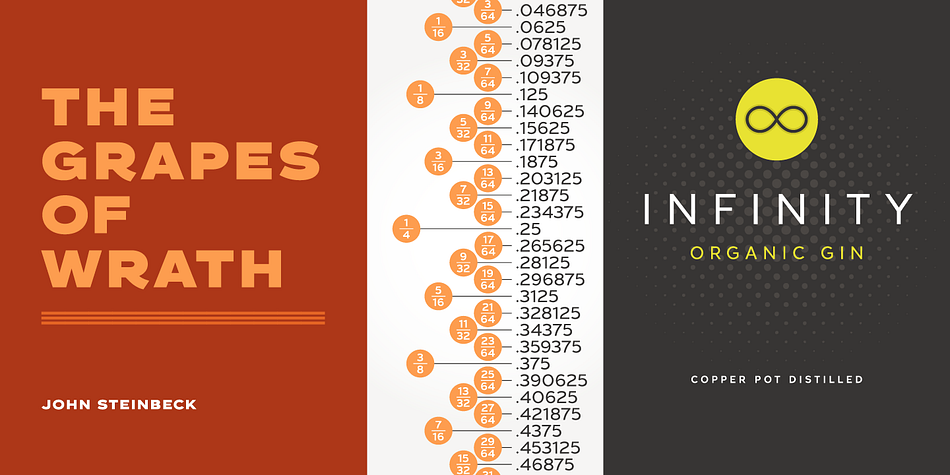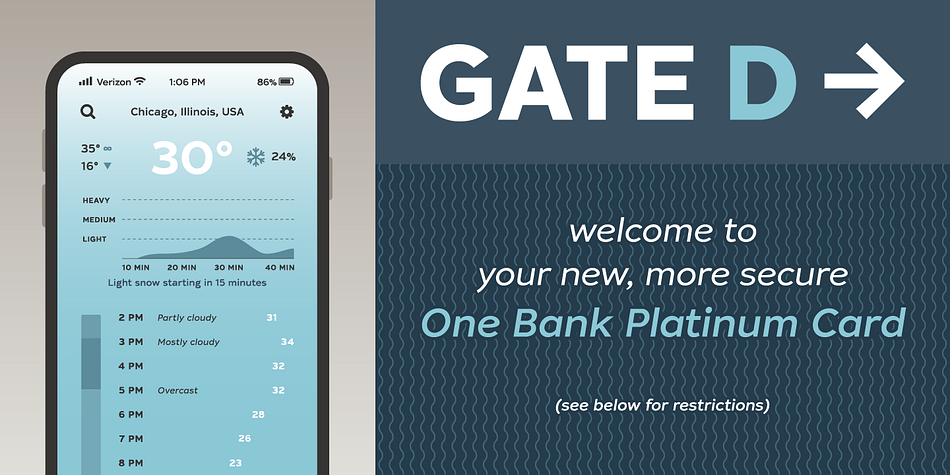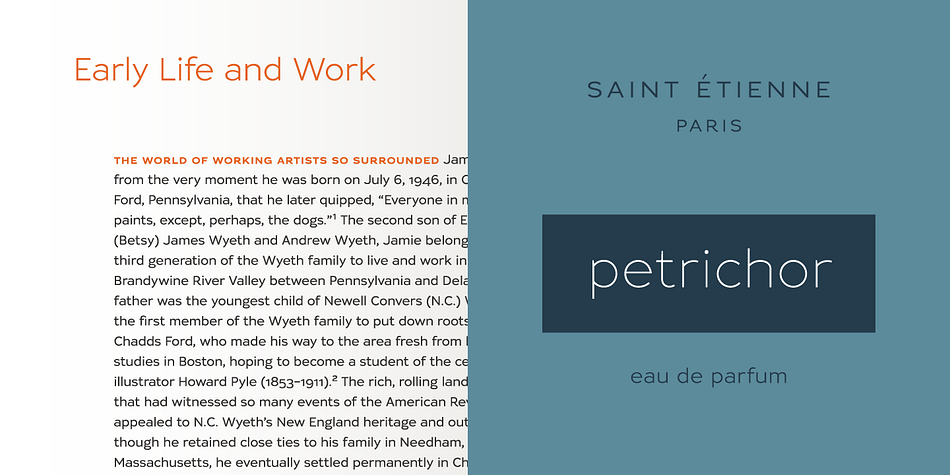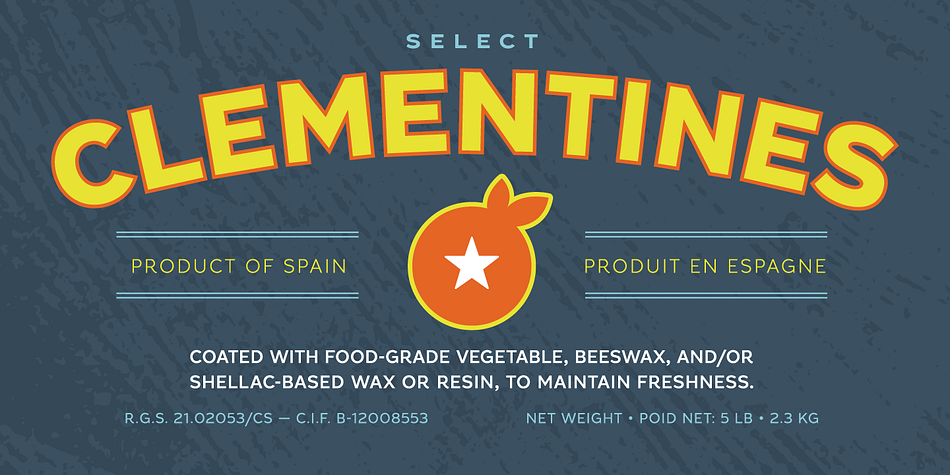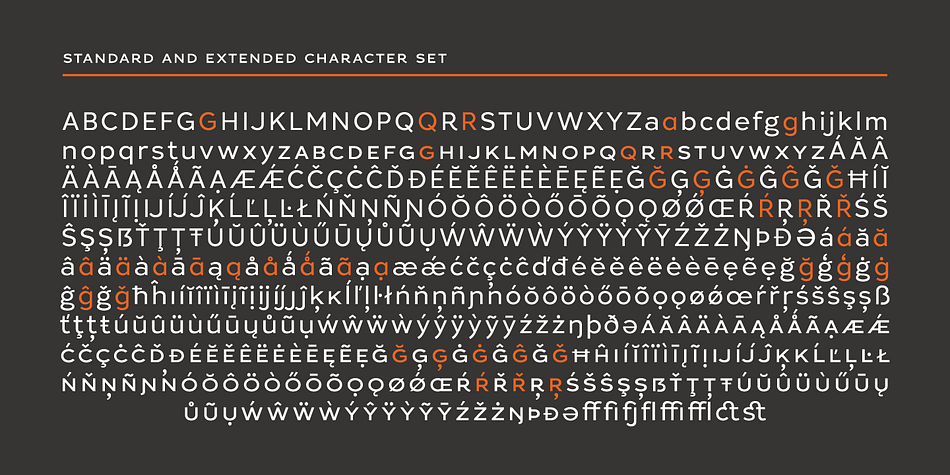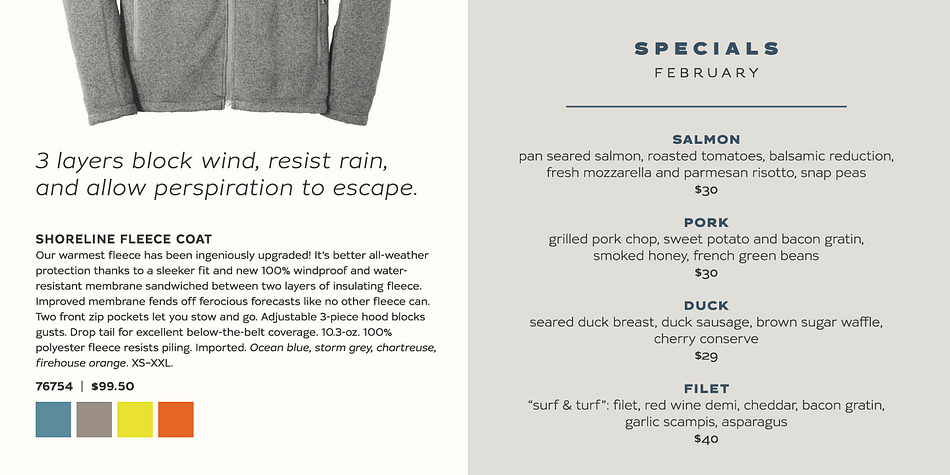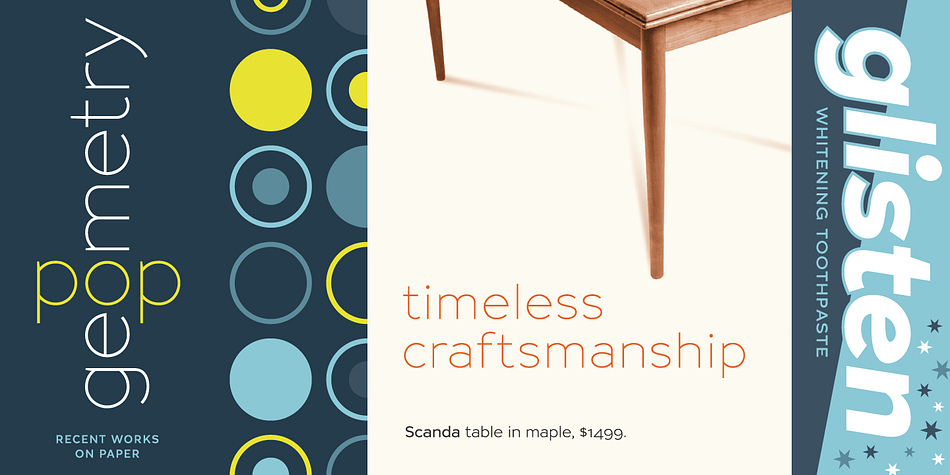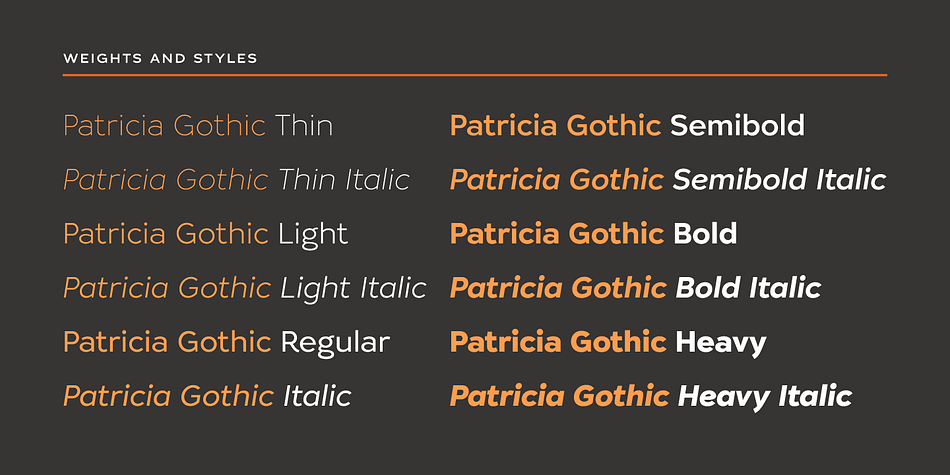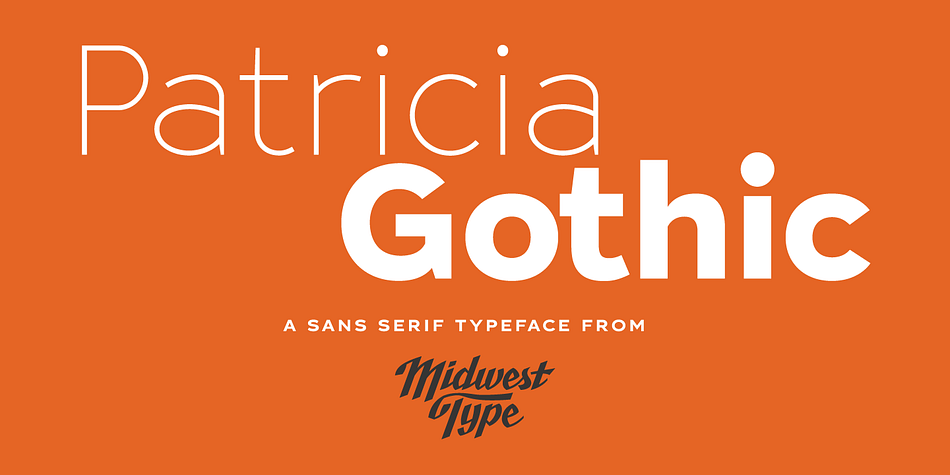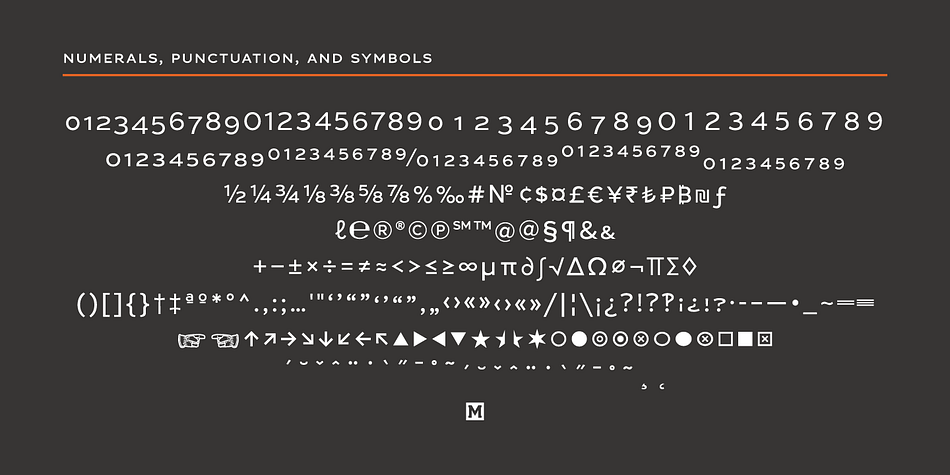
Designed by Jesse R. Ewing, Patricia Gothic is a sans serif font family. This typeface has twelve styles and was published by Midwest Type.
Patricia Gothic is a Midwestern take on the traditional American sans serif style. It has been designed as a legible workhorse typeface family with just the right amount of character to add liveliness to your text. A hybrid of the gothic style and contemporary geometrics, its design has also been influenced by everything from vernacular signage, antique hand-lettered ads, early 20th century posters, and type used on mason jars. Its thinner weights can appear elegant, refined, and modern. Its regular weights set nicely legible text. And the heavier weights, especially the small caps, evoke vintage poster lettering.